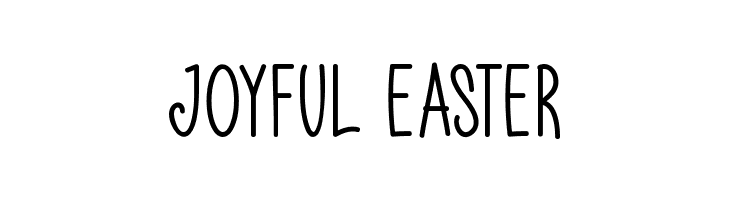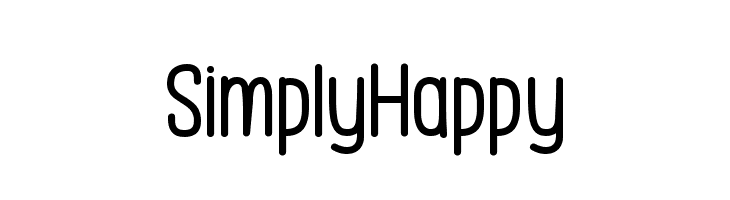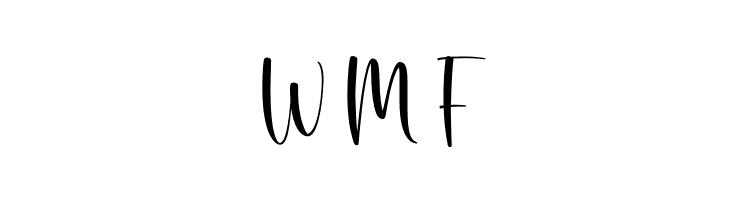
( Fonts by Md Shohail Bhuian )
Playful handwritten font with tall, narrow letters.
( Fonts by Pete Dobson )
Playful handwritten font with a casual style.
( Fonts by Rikbar Creator )
Elegant handwritten script font.
( Fonts by Origin Type )
Playful handwritten font with rounded edges.
( Fonts by RantautypeStudio )
Thin, handwritten script font with a casual style.
( Fonts by Yulius Pramaditya )
Playful, handwritten font with tall, narrow characters.
( Fonts by Aruna Type )
Casual handwritten script font.
A graceful handwritten script font.
( Fonts by Mabhal Studio )
Casual handwritten script font.
( Fonts by Claudia Manca )
Casual handwritten font with a playful style.